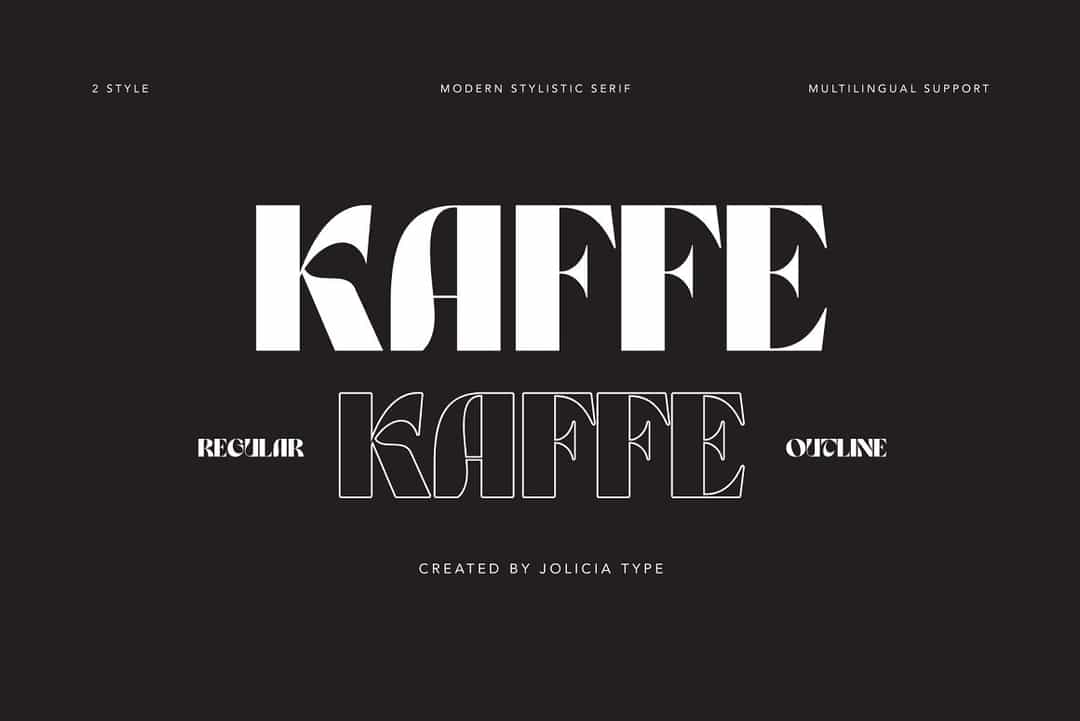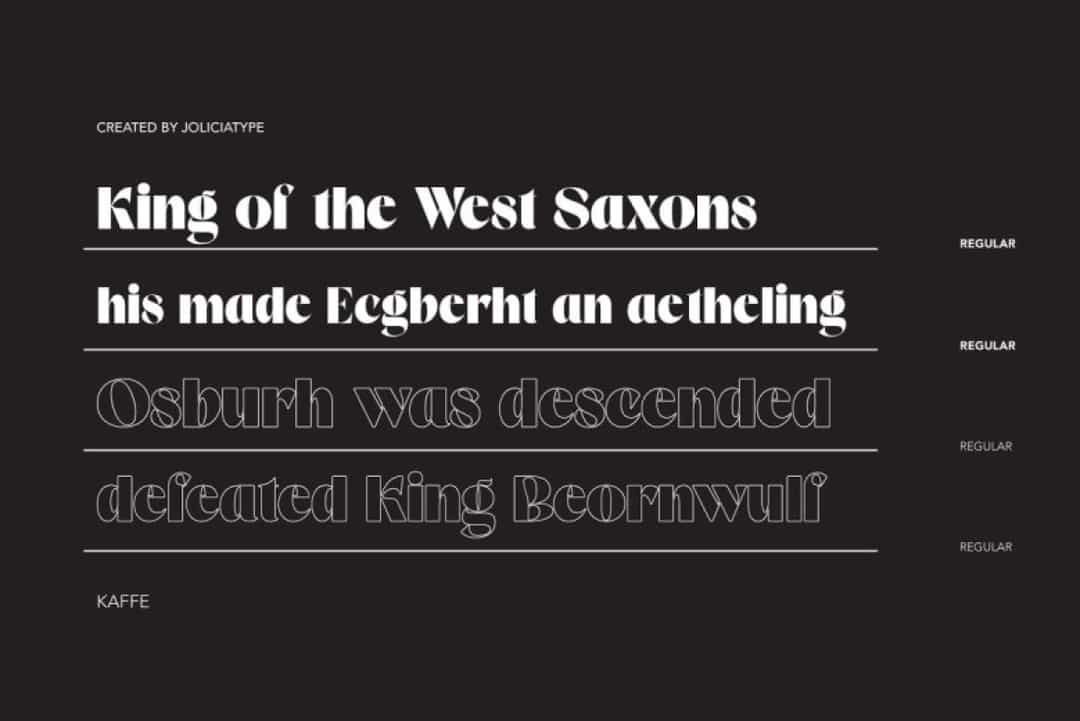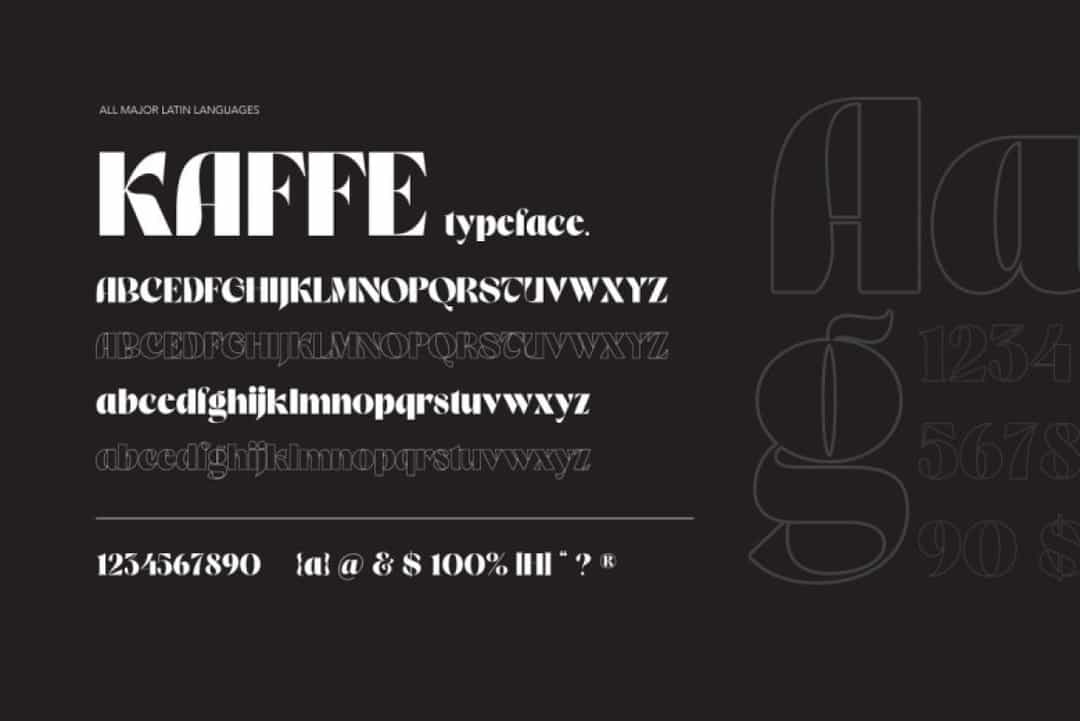
Kaffe can be described as a typeface designed for display that draws inspiration from retro fonts available today, featuring bold and striking design elements reminiscent of both styles. We provide a combined outline style which blends them seamlessly, making Kaffe modern yet memorable for use in logos, branding campaigns and digital marketing strategies alike.